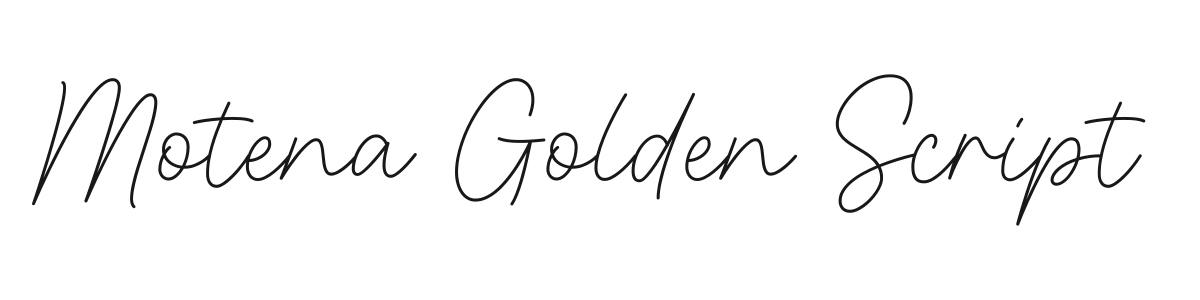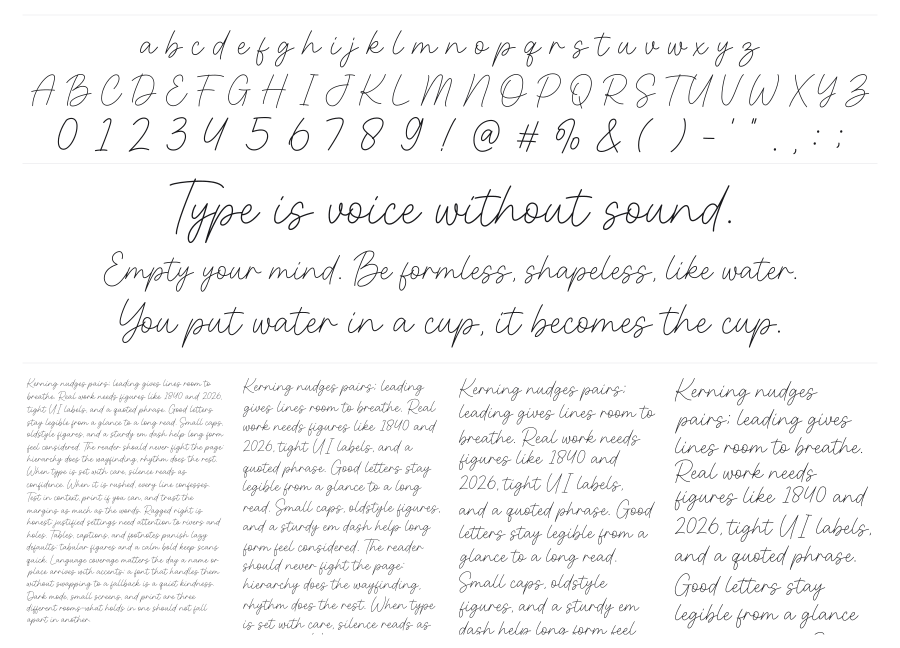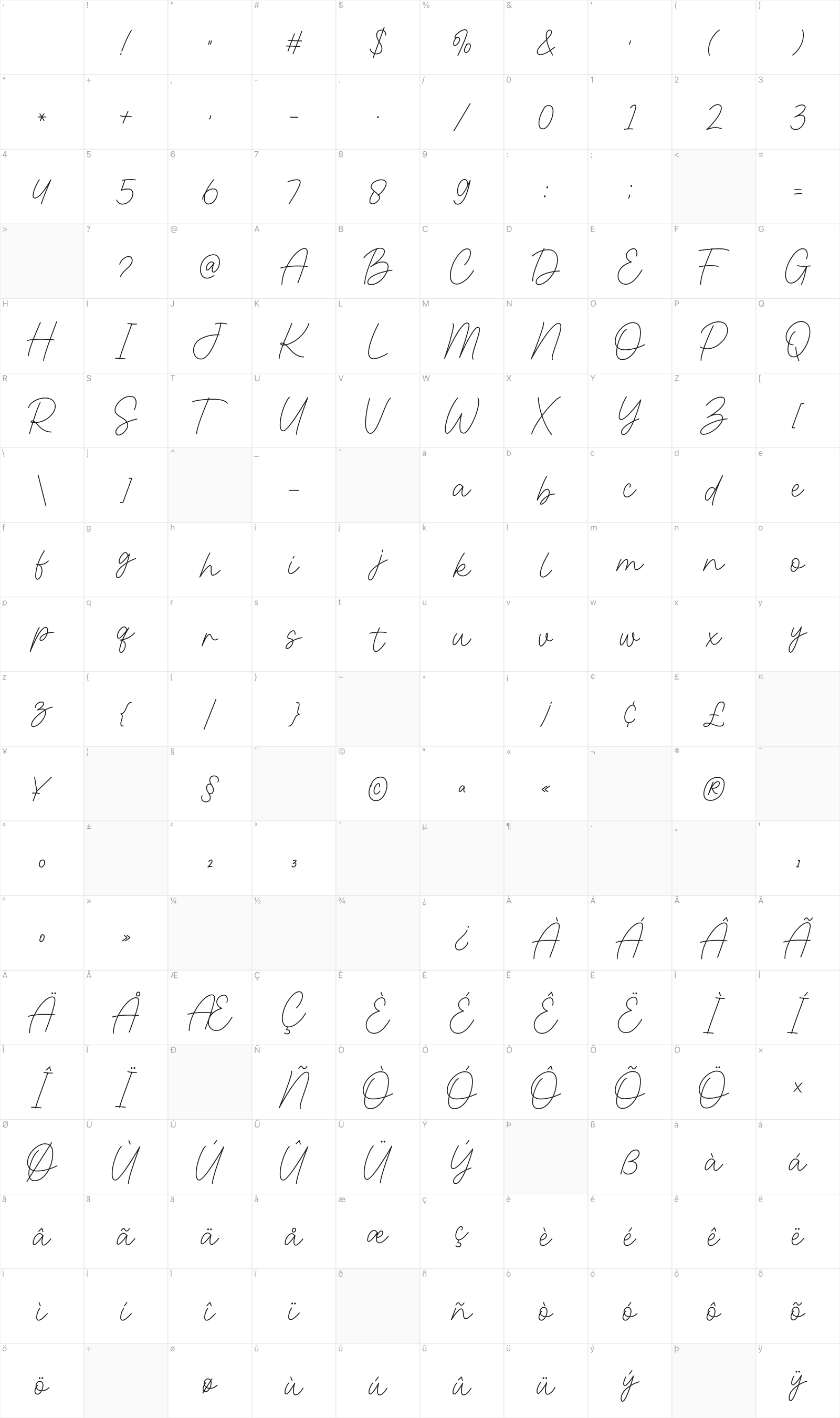
Motena Golden Script
Motena Golden Script is a thin, flowing connected script with graceful loops and long sweeping ascenders that give it a signature-like quality. The near-monoweight strokes and open, airy spacing keep it feeling fresh and contemporary rather than stiff or ceremonial. It works well at large sizes for logos, wedding stationery, and high-end packaging.